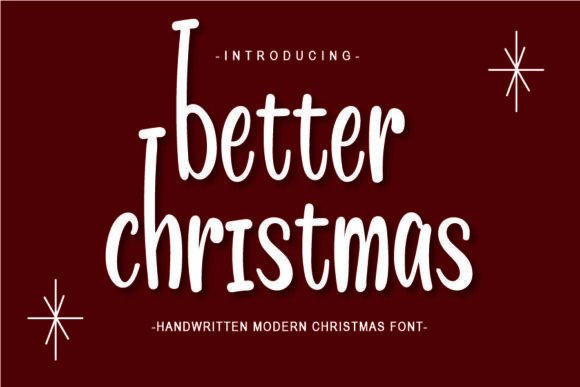
The Magic of Better Christmas Font: A Designer’s Delight
So, what makes Better Christmas font so special? Here are a few things I love:
- ✨ Festive and playful design that’s perfect for the holiday season
- 🎉 Extensive character set, including OpenType features and glyphs
Of course, no font is perfect, and Better Christmas font has a few quirks:
- 🤔 Some users may find the font a bit too ornate for certain projects
The Story Behind Better Christmas Font
Legend has it that the designer behind Better Christmas font was inspired by a childhood spent making holiday crafts with their family. They wanted to create a font that captured the magic and playfulness of the season, while still being versatile enough for a wide range of projects. And so, Better Christmas font was born!
| Font Name | Better Christmas Font |
| Author | hl_studio |